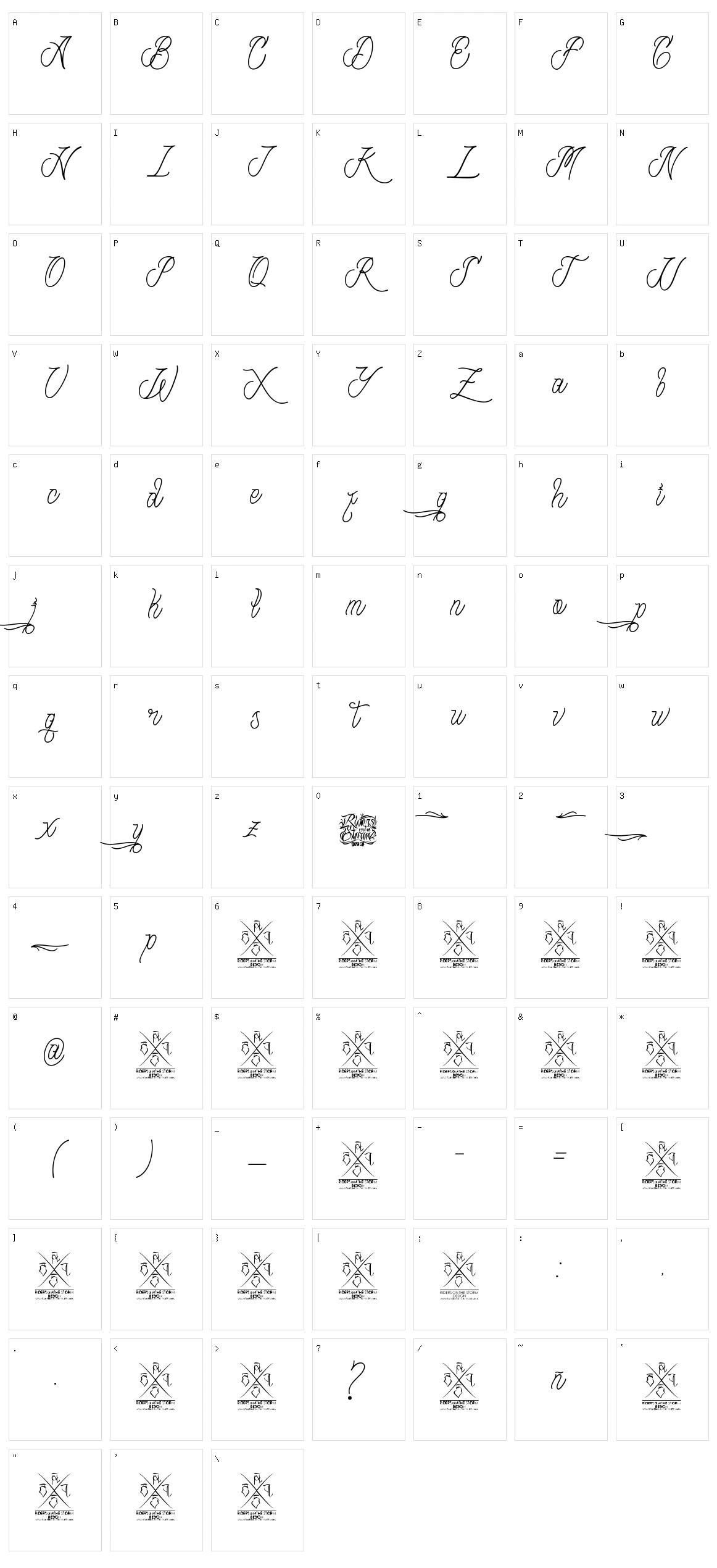
The free font Strange Days is carefully designed by Richie Mx, showcasing a thoughtful balance of creativity and usability and falls under the Script font style. When you download the ZIP file, it contains only 1628.59 KB of font files, making it lightweight and quick to download. Please review the license details below to understand permitted usage and distribution rights. If license information is not available, we recommend using this font for personal projects only or contacting the author directly for commercial usage permissions.